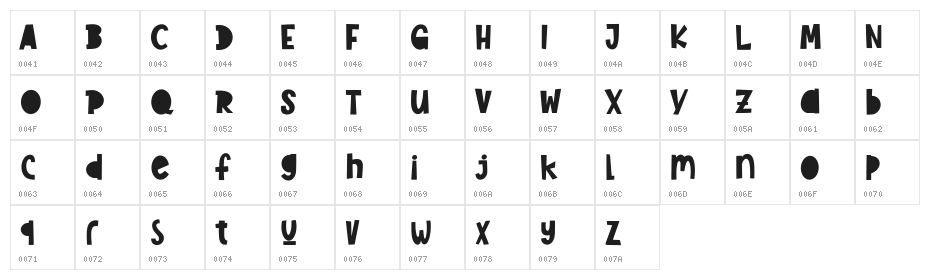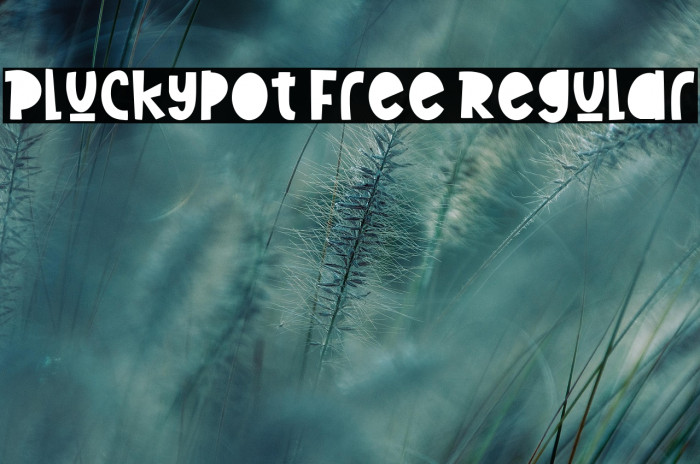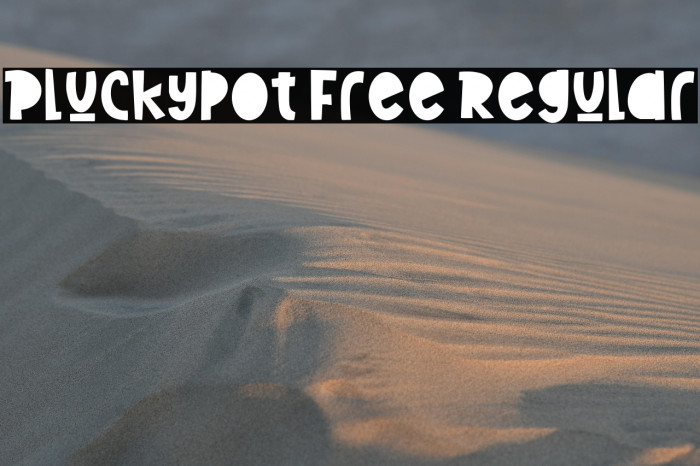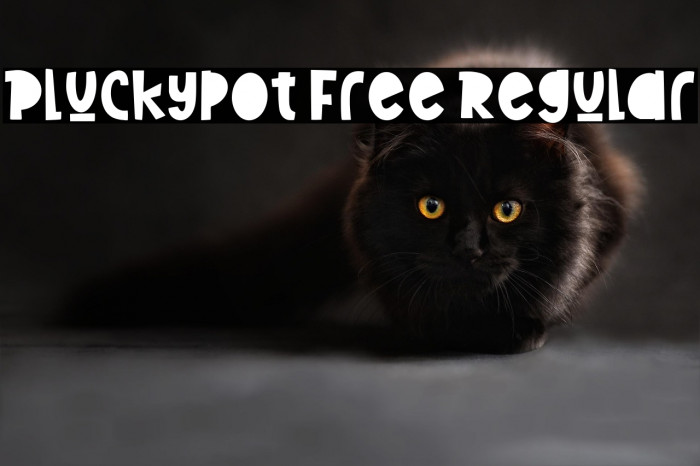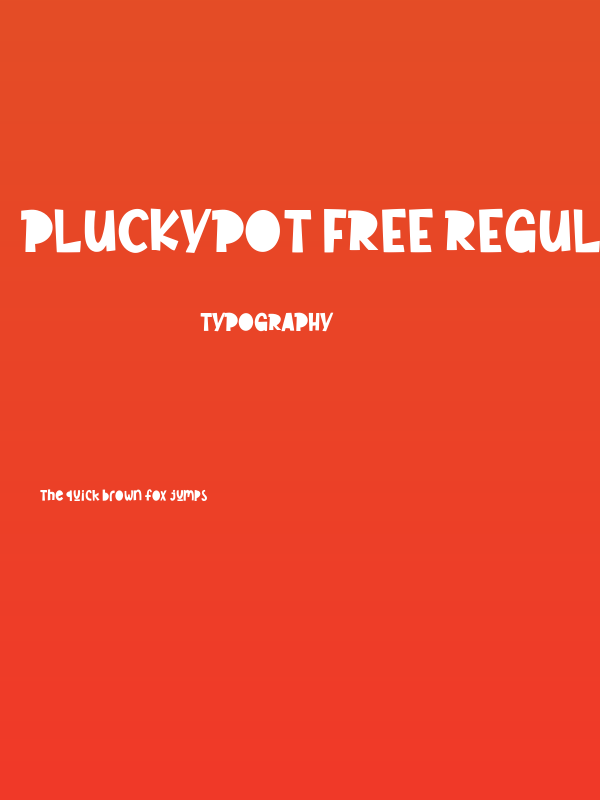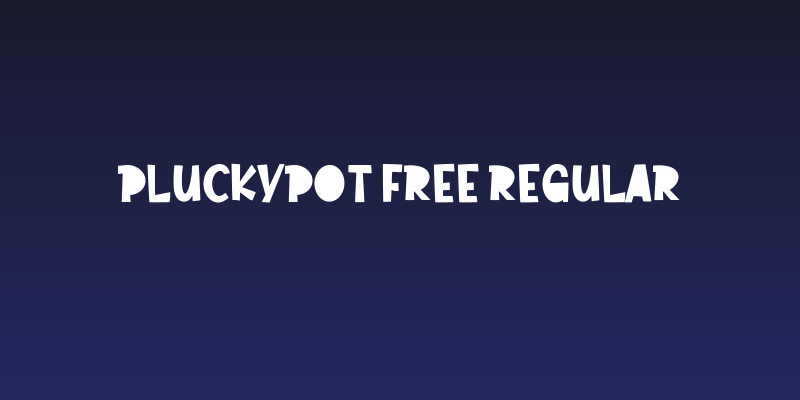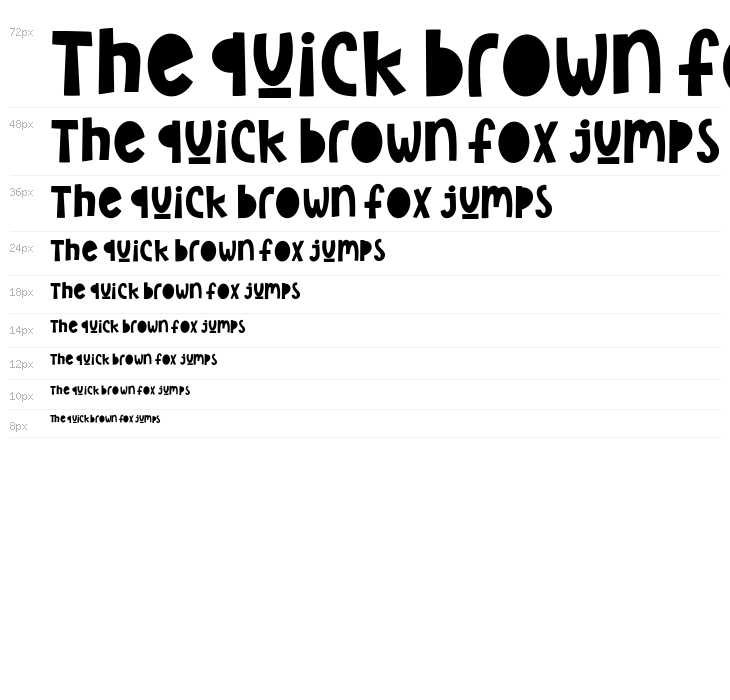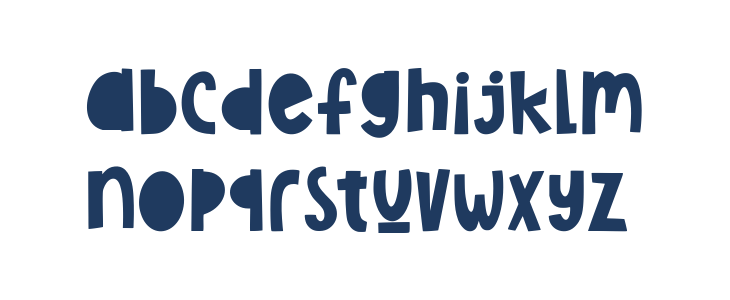
Pluckypot Free Regular Font
Pluckypot Free Regular Description
This font exhibits a playful and bold style, characterized by its thick, rounded letterforms and quirky, uneven shapes. The uppercase letters are particularly striking, with exaggerated curves and varying widths that give each character a unique personality. The lowercase letters maintain this whimsical aesthetic, featuring similar bold strokes and playful variations in height and width. The numbers and special characters are consistent with the overall style, adding to the font's charm and versatility. This font is ideal for projects that require a fun, eye-catching typeface that stands out.
| Overall Style | Playful, Quirky |
| Proposed Projects | Ideal for children's books, playful branding, posters, and creative design projects. |